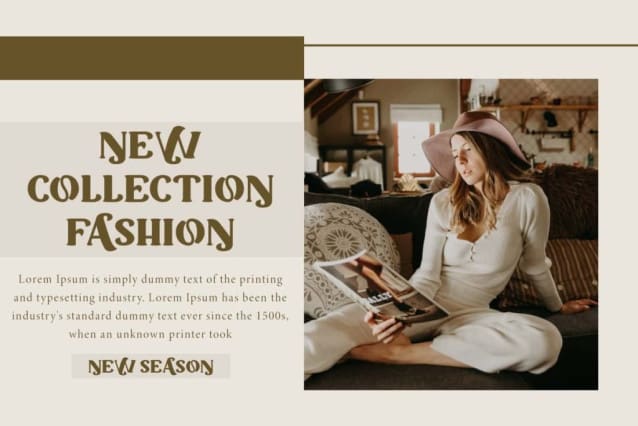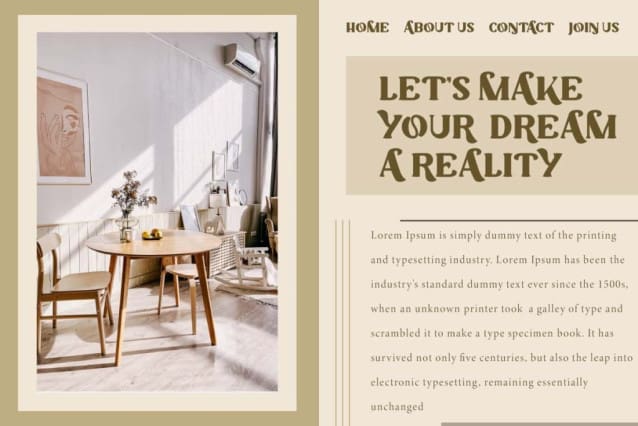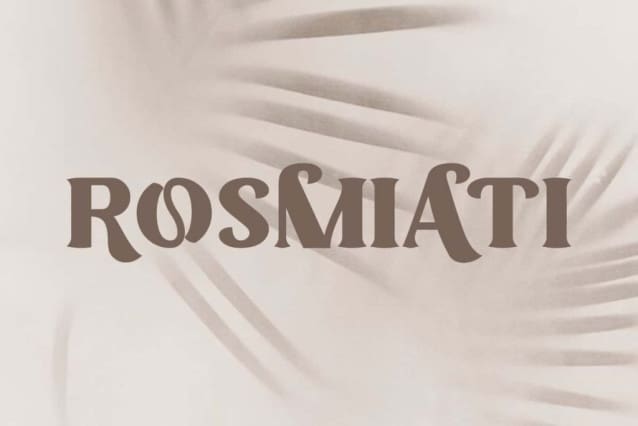
Rosmiati Font is a vintage coffee bean serif display font that is made creative with an artistic touch. This typeface can be used for various purposes such as apps, billboard, blog, brochure, cards design, headers, heading, invitation, logo, poster, product packaging, screen print, signage, stickers, title, watermark, website, and much more.
Rosmiati Font contains a complete set of basic Uppercase and Lowercase characters, Numbers, Symbols and Punctuation. This bold and elegant display font ensures that the message conveyed through text is easy to read and understand. It will be suitable for boutique, cafes, content creator, cosmetic, fashion, graphic design, handicraft, home furniture, restaurant, and many more.